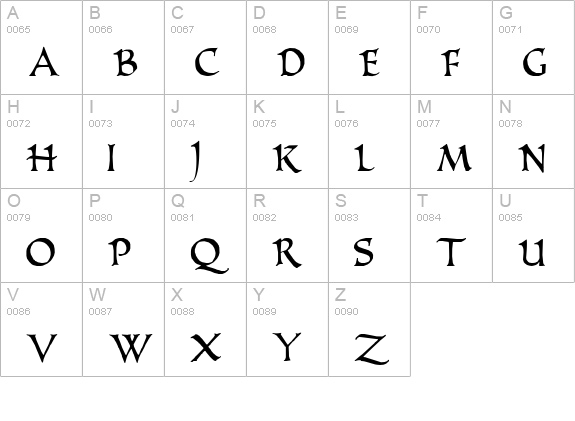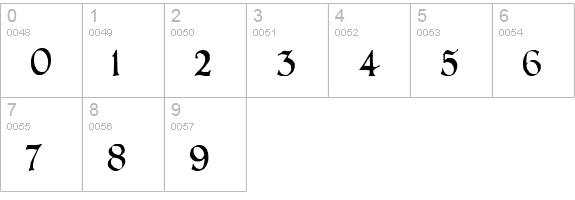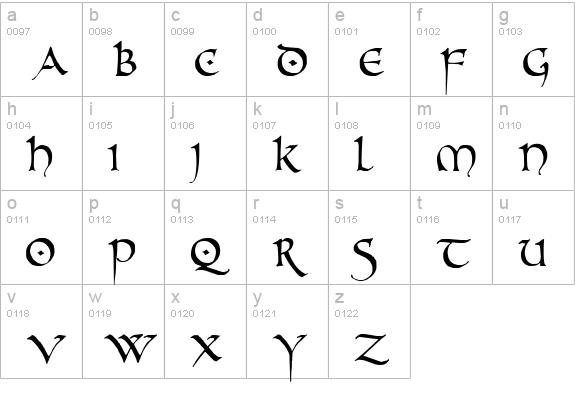
PR Uncial Alternate Capitals Font Details
PR Uncial Alternate Capitals font is a unique and elegant typeface that exudes a sense of historical charm and sophistication. Its intricate, ornate letterforms are perfect for adding a touch of old-world flair to your designs. The alternate capitals provide versatility and creative options for your projects, making this font a standout choice for any creative endeavor. Best of all, PR Uncial Alternate Capitals font is available for free download at FontsMarket.com. Now you can enhance your designs with this exquisite typeface without breaking the bank. Don't miss out on the opportunity to add a touch of timeless elegance to your projects with this stunning font. Download PR Uncial Alternate Capitals today and elevate your designs to the next level.